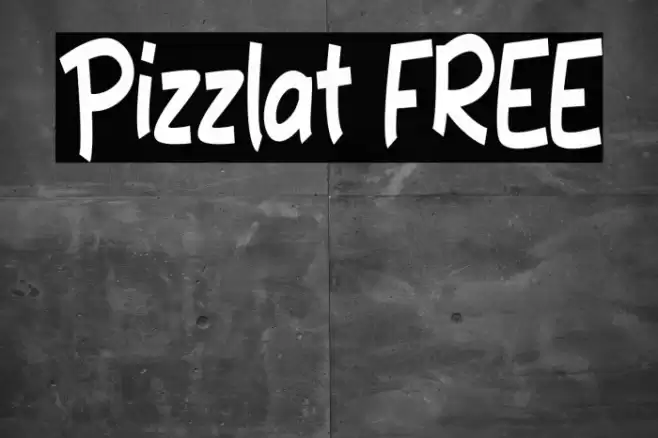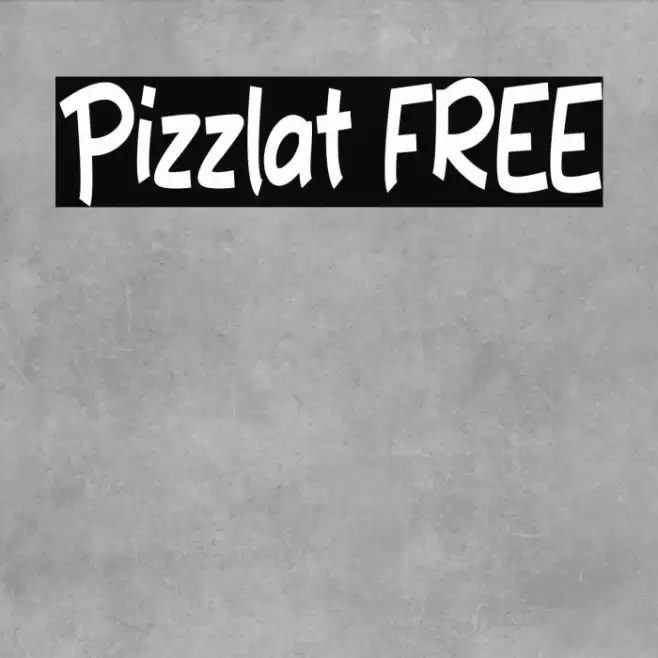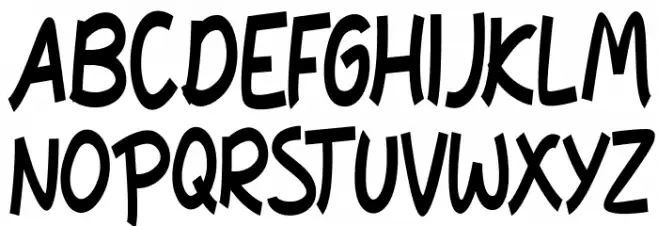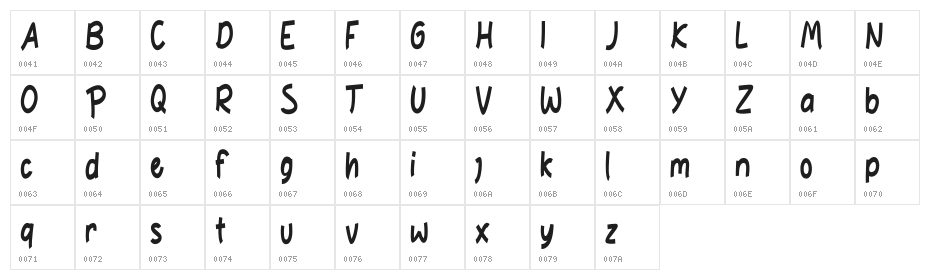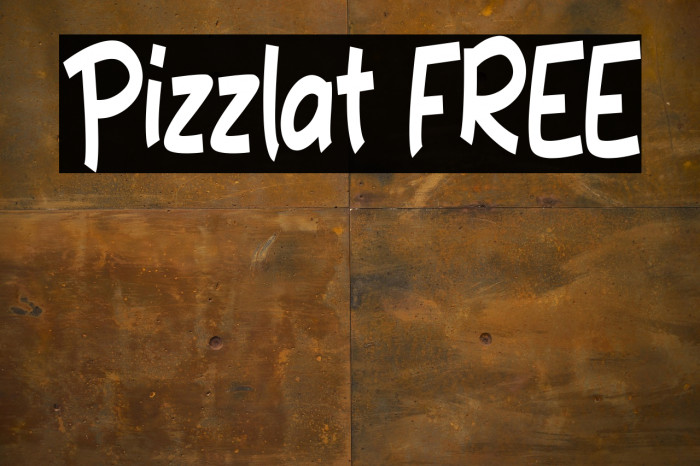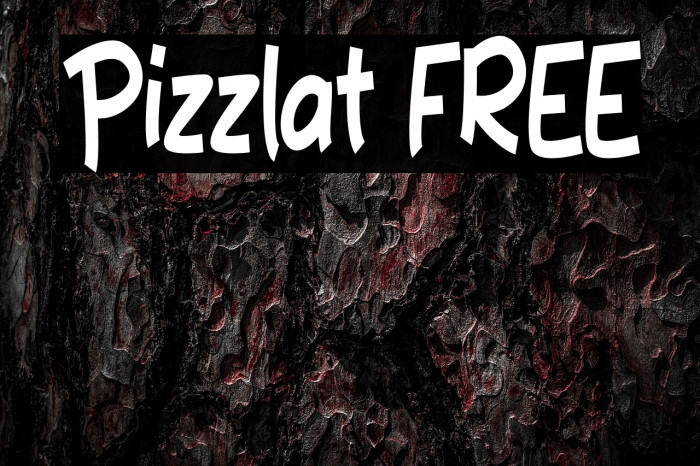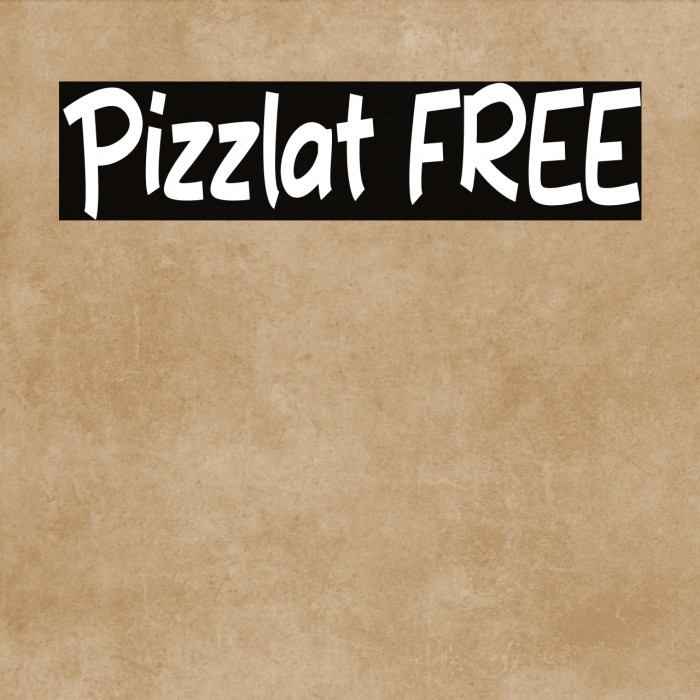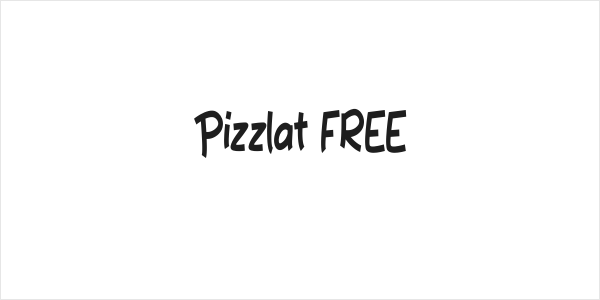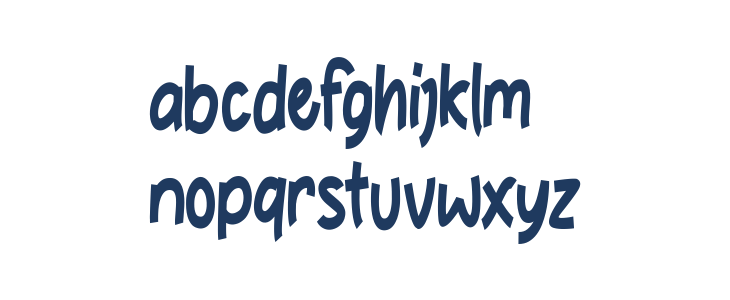
Pizzlat FREE Font
Pizzlat FREE Description
This font features a playful and dynamic style, characterized by its bold and slightly irregular letterforms. The strokes are thick and consistent, giving it a strong presence. The letters have a hand-drawn feel, with slight variations that add to its charm and uniqueness. The uppercase and lowercase letters maintain a cohesive look, while the numbers and special characters complement the overall design. This font is ideal for projects that require a fun and engaging aesthetic, such as children's books, posters, or branding for creative businesses.
A playful, bold font with a hand-drawn, dynamic style from Comic fonts.
- Proposed Projects: Children's books, posters, creative branding, playful designs.
- Overall Style: Playful, Hand-drawn